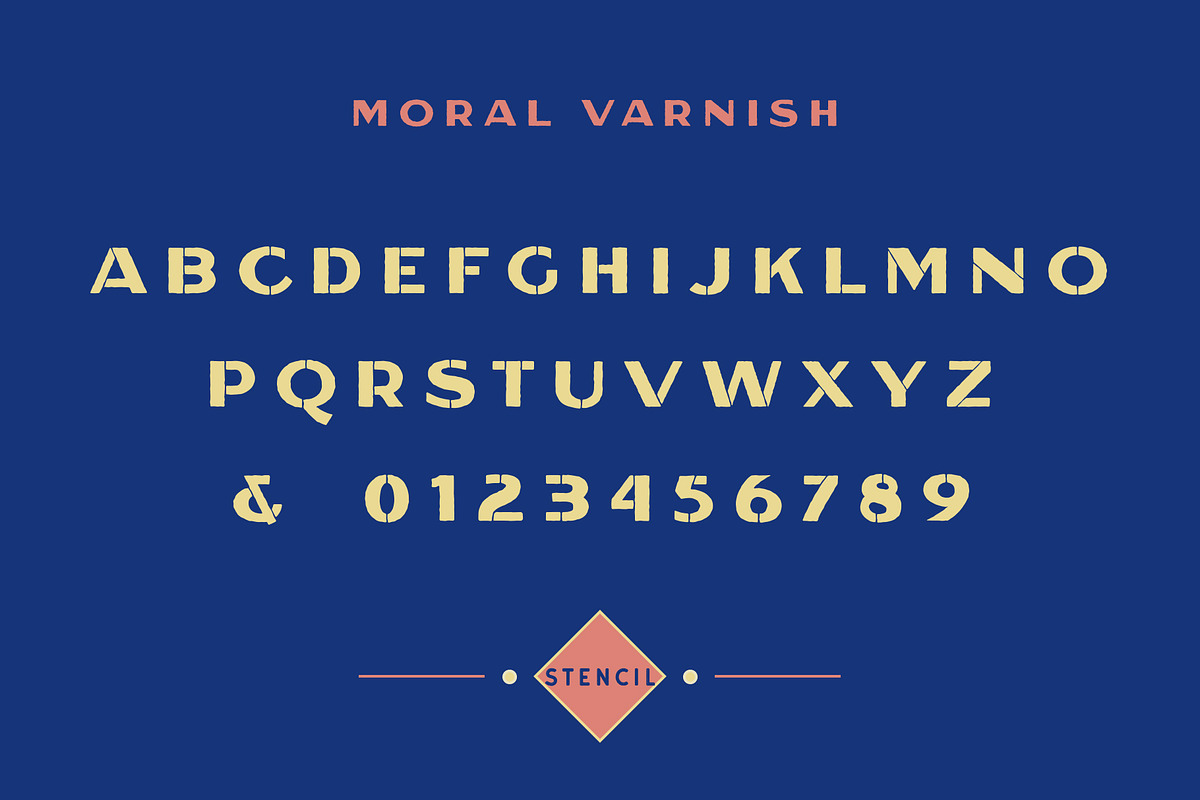
Moral Varnish Sans Serif & Stencil
Introducing Moral Varnish Sans Serif & Stencil
Moral Varnish is a brand new typeface featuring 12 different fonts with an authentic hand crafted look! Inspired by timeless signs and old packaging it will be your go to for logos, packaging, shirts, or any project that calls for something with a timeless feel! The font comes jam packed with 127 alternates, so you can definitely create something unique every single time!
Tons of ligatures, alternate characters, and multiple styles will make your options nearly limitless!
- Sans • Serif • Stencil • Stencil Serif
- Styles include regular, round, and rough